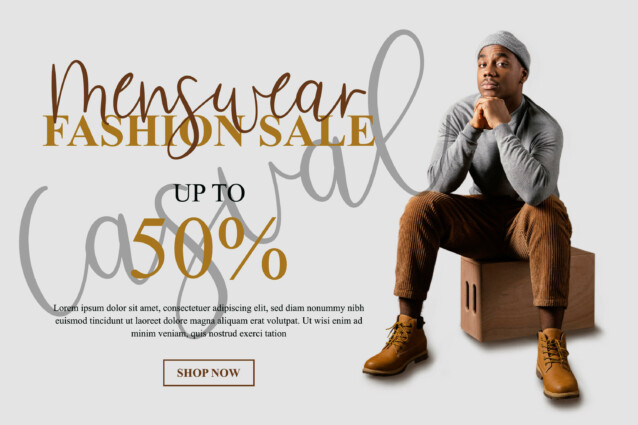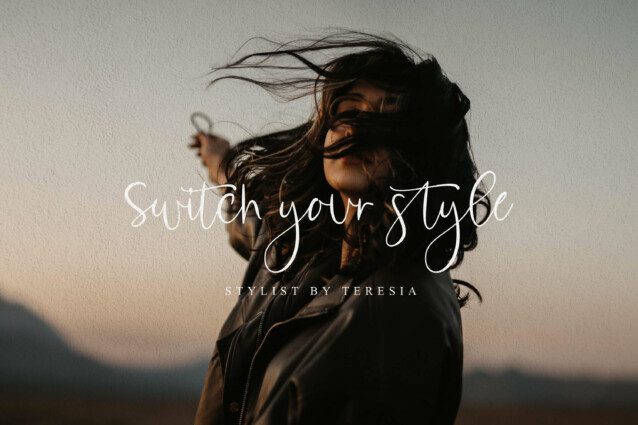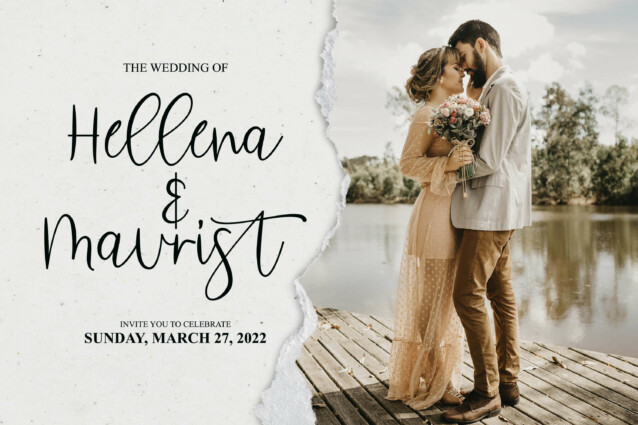
Sweettea Font
Sweettea Font is perfect for an elegant & luxury logo , classy editorial design, women’s magazine, fashion brand , cosmetic brand, fashion promotion , modern advertising design, invitation card, art quote, home decoration , book/cover titles, special events, and much more.